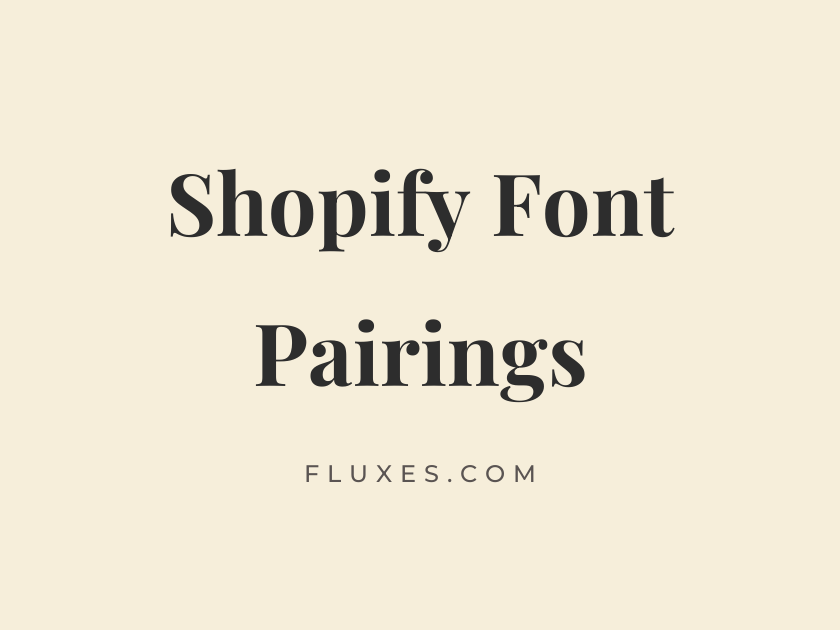
36 Best Font Pairings for Shopify
Shopify stores live or die on first impressions, and typography is doing most of that work before a single product photo loads. The right pairing signals price point, tone, and trustworthiness in seconds, whether you are running a minimalist skincare line, a maximalist streetwear drop, or a quiet little stationery shop. What follows is a wide set of Google Fonts pairings organized loosely by the kind of store they suit, so you can match one to your niche rather than force a generic combination onto a brand it does not fit.
Playfair Display + Lato
High-contrast serif strokes against a humanist sans is the classic fashion-boutique formula: Playfair Display supplies editorial glamour while Lato keeps product descriptions and checkout copy easy to scan. This is a dependable starting point for apparel and accessories brands aiming for upscale but approachable.
Fraunces + Karla
Fraunces has just enough warmth and irregularity in its curves to feel artisanal, and Karla’s clean geometry keeps that warmth from tipping into fussiness. It suits ceramics, candle, and handmade goods shops that want to look crafted without looking rustic.
Bebas Neue + Inter
A tall condensed display font next to a neutral, screen-optimized sans is the shorthand streetwear and sneaker sites reach for constantly. Bebas Neue shouts on a hero banner while Inter stays legible in the size and material details underneath.
Cormorant Garamond + Nunito Sans
Cormorant Garamond’s slender, jewelry-like letterforms suit bridal and event brands, and Nunito Sans’s soft, rounded terminals keep the body copy gentle rather than cold. This is a reliable pairing for wedding shops, florists, and event stationers.
Archivo Black + Work Sans
Archivo Black is dense and confident enough to carry a tech or gadget hero section on its own, while Work Sans is engineered for the small print of specs and shipping policies. Together they read as sturdy and no-nonsense, good for outdoor tech and durable goods.
DM Serif Display + DM Sans
Because these two share a type family, their proportions and spacing already agree, which removes the guesswork of matching x-heights. It is an easy, low-risk pairing for skincare and beauty brands that want a soft, unified look across headline and body.
Abril Fatface + Poppins
Abril Fatface’s heavy, almost inflated curves give bakery and confectionery banners a playful richness, and Poppins’s geometric roundness keeps the supporting text friendly. This combination works well anywhere a brand wants to feel indulgent rather than austere.
Josefin Sans + Merriweather
The retro geometry of Josefin Sans pairs nicely with a sturdy text serif like Merriweather, giving a vintage or secondhand shop a lightly nostalgic feel without leaning into full antique styling. It also holds up well for product story sections that run long.
Prata + Mulish
Prata’s sharp, high-contrast serifs feel closer to engraving than screen type, which suits fine jewelry, and Mulish’s understated letterforms let product specifications sit quietly beside it. This pairing favors brands leaning into heirloom quality and restraint.
Oswald + Open Sans
Oswald’s condensed width lets long product names fit into tight banner space, a practical concern for outdoor and adventure gear, and Open Sans is about as reliable and legible a workhorse as Google Fonts offers. It is a hardworking, unglamorous pairing that fits brands built on function over flash.
Marcellus + Cardo
Both fonts draw on classical proportions, so Marcellus’s calm capitals and Cardo’s book-like text feel like they belong to the same era without being identical. This is a strong match for antiques, rare books, and heritage-focused shops.
Space Grotesk + Inter
Space Grotesk has enough quirk in its letterforms to feel current without going full futuristic, and Inter is practically the default for clean, screen-native body copy. Tech accessory and gadget stores get a modern, slightly technical mood without sacrificing readability.
Keep body copy between 16 and 18 pixels for comfortable reading on product and collection pages, and reserve the more decorative heading font for banners, section titles, and short callouts rather than long paragraphs.
If a pairing feels too matched in weight or mood, exaggerate the contrast, sizing the heading font up and the body font down, so the hierarchy reads clearly even on a quick mobile scroll.